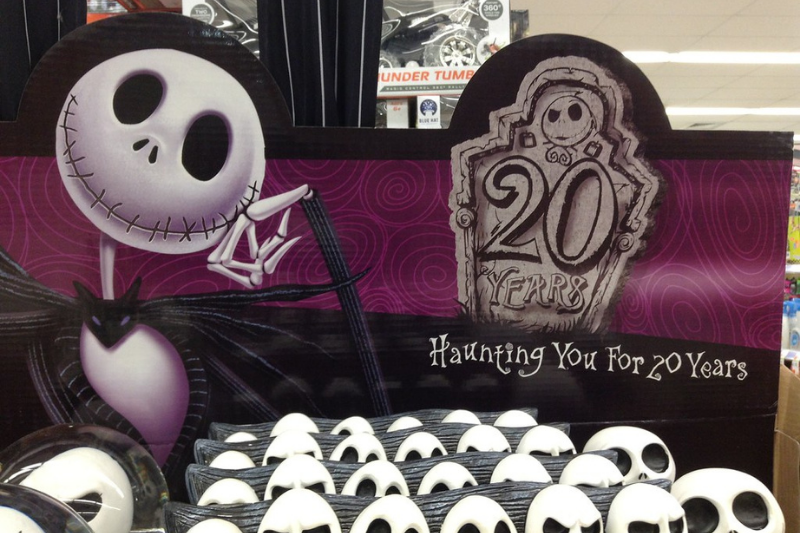
Nightmare Before Christmas Font Generator
About the Nightmare Before Christmas Font Generator
The Nightmare Before Christmas has a visual aesthetic all its own β€” spindly, gothic lettering with a whimsical twist, borrowing from Tim Burton's signature blend of dark fairy tale and macabre playfulness. That curling, slightly unsettling typographic style is equally at home at Halloween or Christmas, which makes it uniquely versatile for seasonal and fan-driven creative projects.
• Halloween and Christmas crossover party invitations
• Fan art and tribute poster titles
• Seasonal social media graphics and story text
• Cosplay props and themed room dΓ©cor prints
• YouTube thumbnails for Tim Burton or holiday horror content